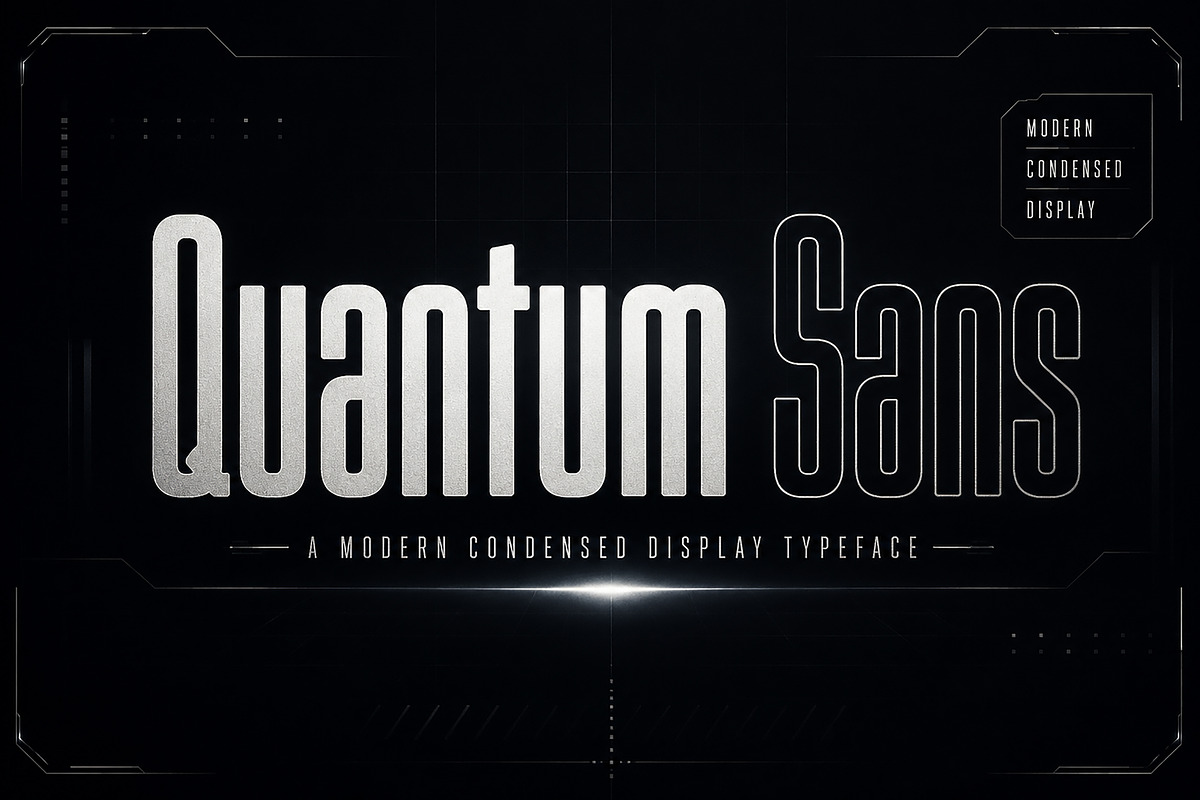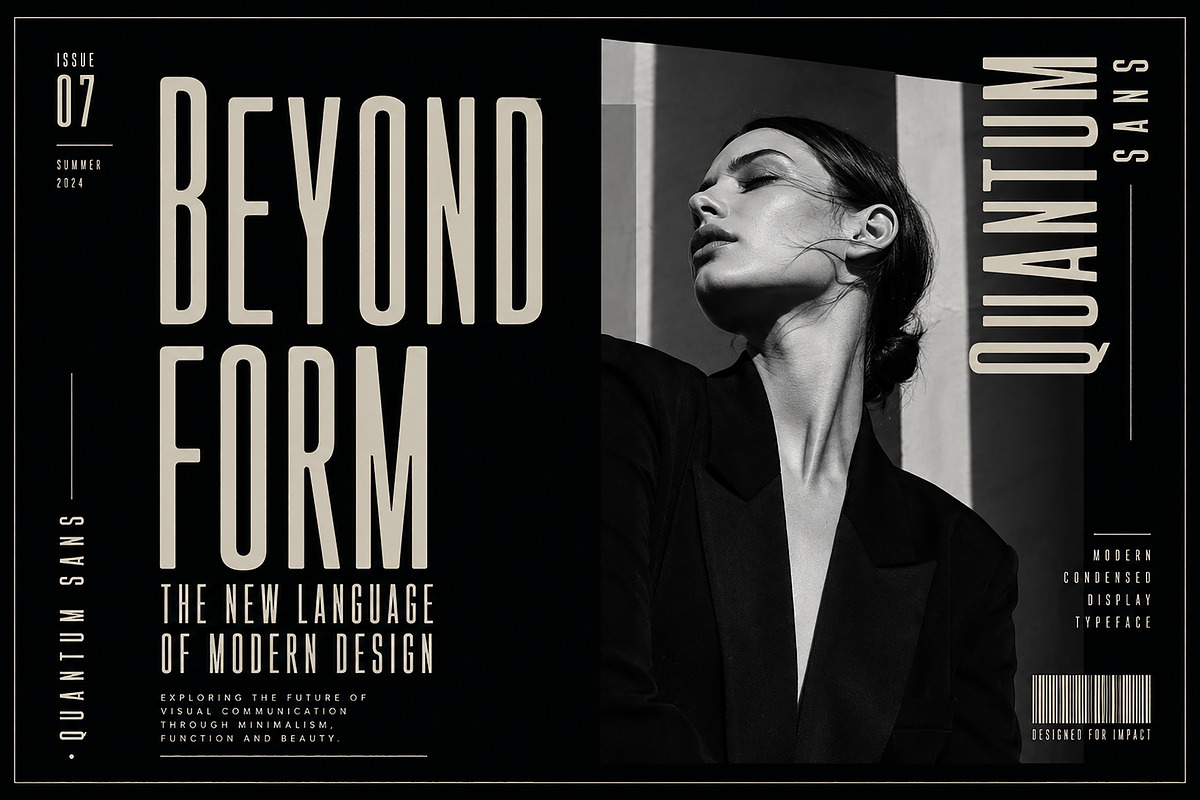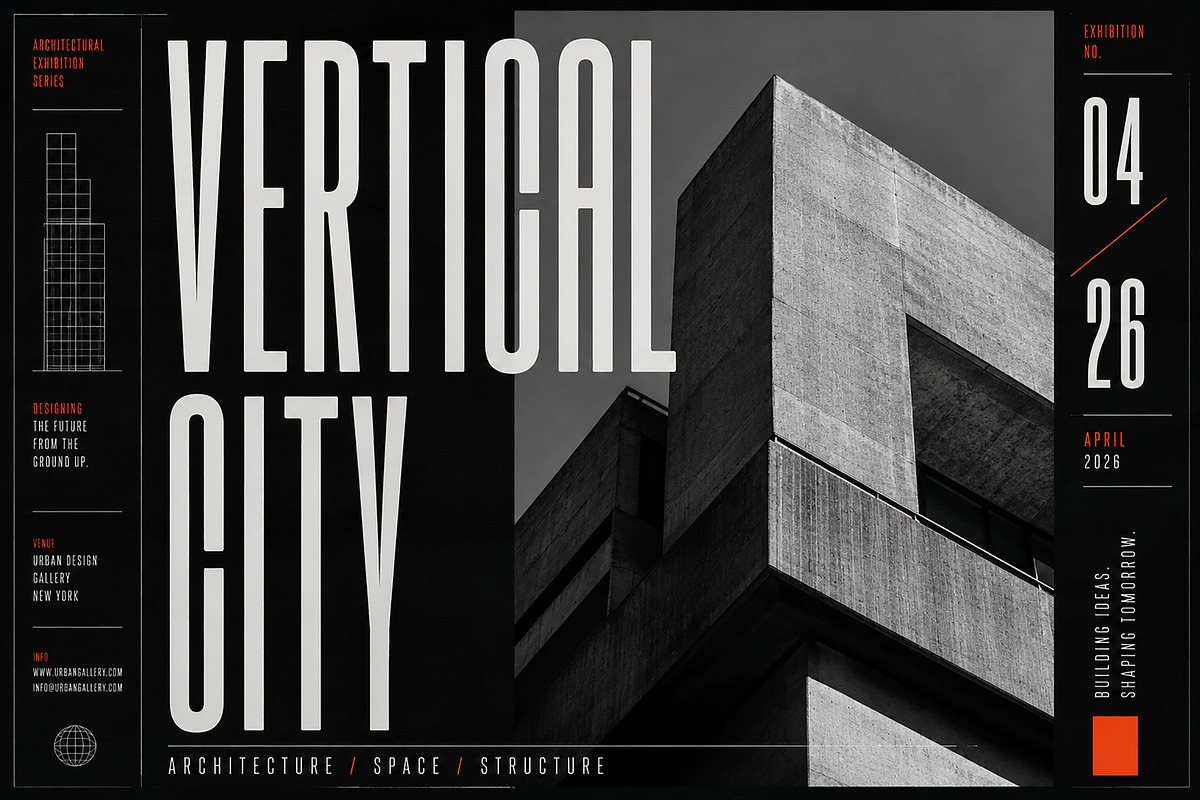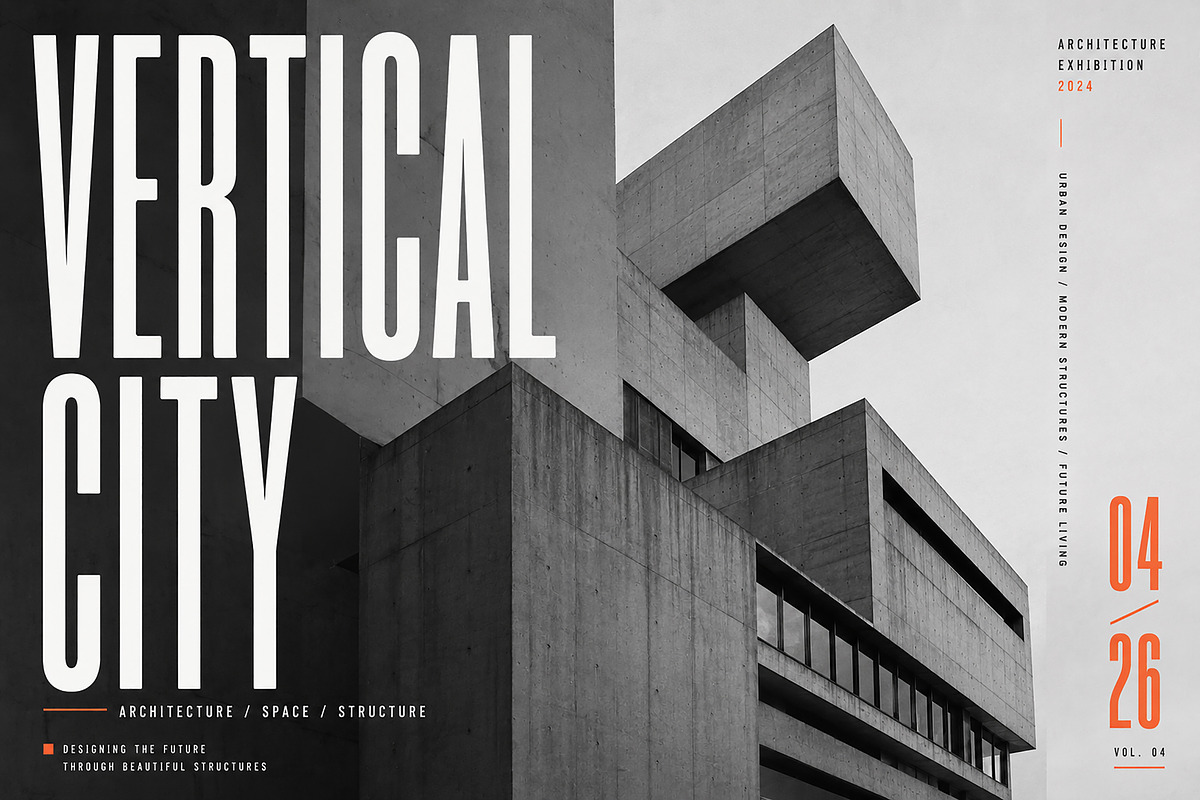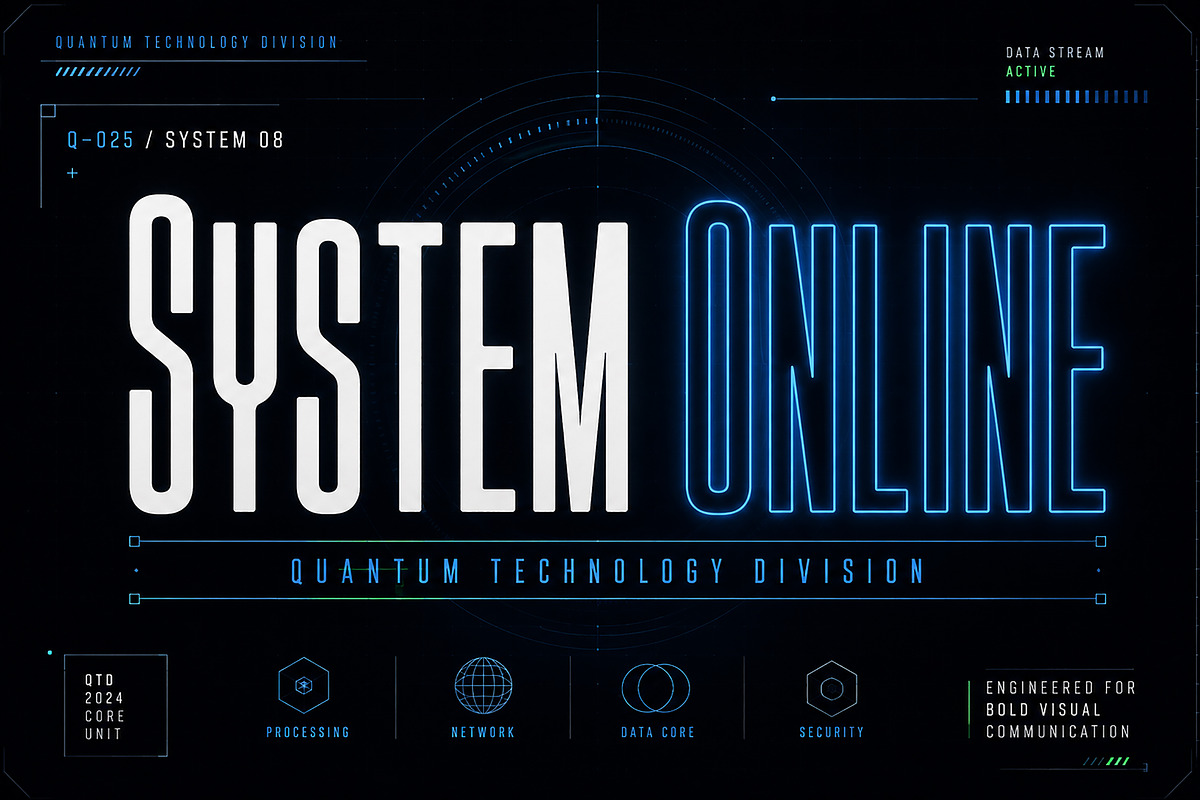
Quantum Sans
Quantum Sans is a bold, modern condensed display typeface designed for creators who want strong visual impact with a clean, futuristic aesthetic. Its tall proportions, geometric structure, and confident letterforms make it ideal for high-end branding, editorial layouts, technology projects, posters, and contemporary visual identities.
Whether you're designing a luxury fashion campaign, a cyber-inspired interface, an architectural poster, or a modern logo, Quantum Sans delivers sharp readability and a premium professional look.
Perfect for designers looking to create bold headlines that stand out while maintaining a sleek and minimal appearance.
Branding & Identity
Technology Branding
Fashion Editorial
Posters
Magazine Covers
Advertising
YouTube Thumbnails
Website Headers
Event Posters
Architecture Projects
Gaming Graphics
Modern Marketing Materials
Modern Condensed Display Typeface
Clean & Minimal Design
Bold Headlines
Geometric Letterforms
Futuristic Style
Easy to Use
High Readability
Professional Quality
Numbers & Basic Punctuation